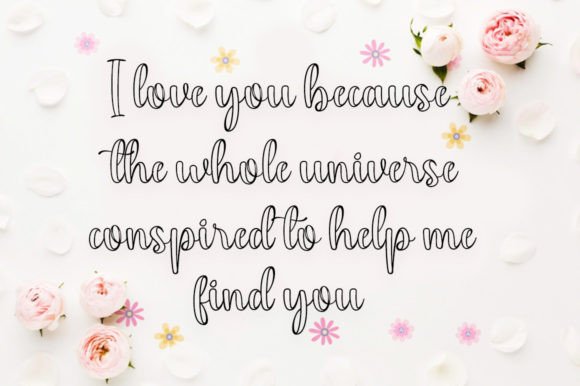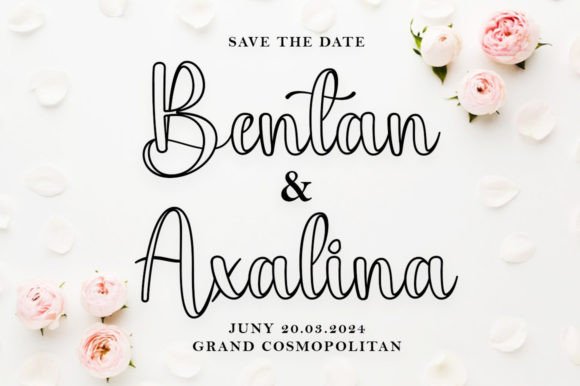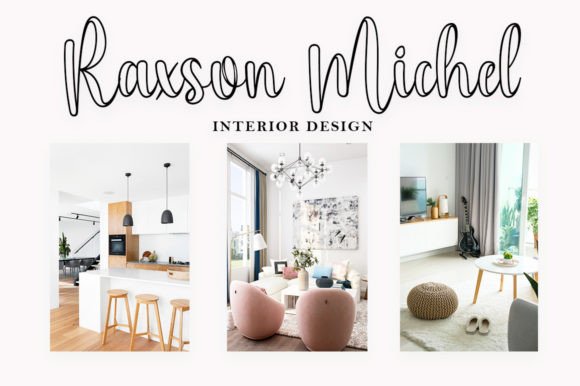
Introduction to Micha Outline Font
Micha Outline is a cute, versatile, and flexible handwritten font.
Warm, romantic, and jovial, this font will turn any of your project ideas into real works of art This font is PUA encoded, which means you can access all the glyphs and swashes with ease.
Key Features of Micha Outline Font